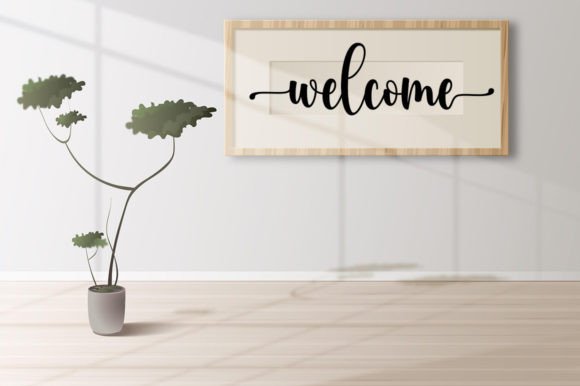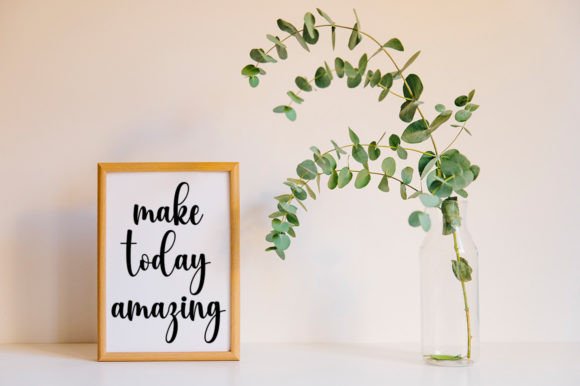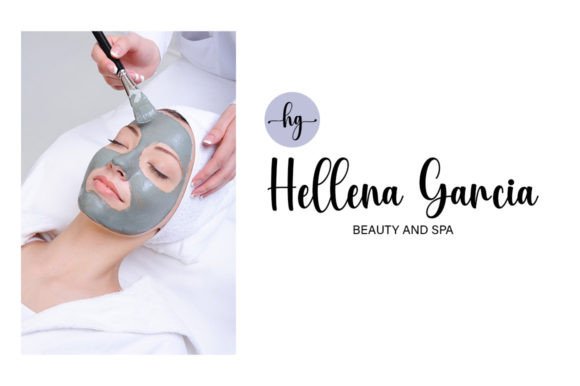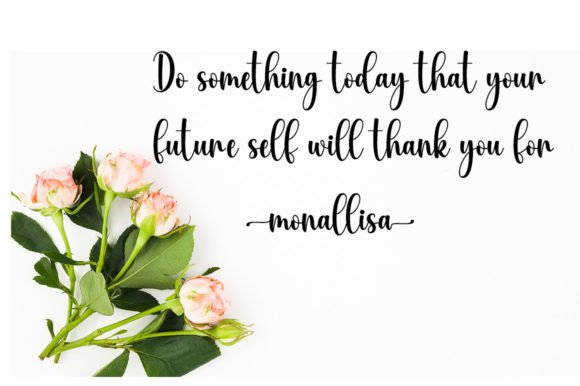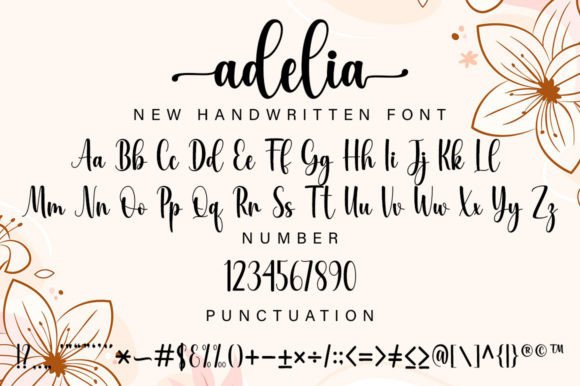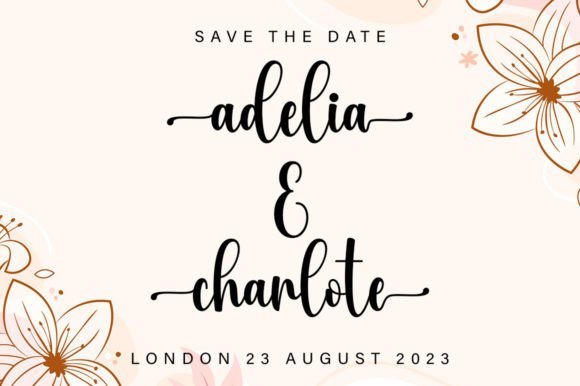
The Adelia Font: Elevate Your Designs with Elegance and Style
Have you ever been in the middle of a design project, and suddenly, you’re stuck on finding the perfect font? I recall a particularly stressful experience while working on a wedding invitation design. My client wanted something elegant, yet personal, and I was determined to deliver. That’s when I stumbled upon the Adelia Font, a stylish and incredibly elegant handwritten font that instantly elevated my design game.
A Personal Review: What I Love and What to Watch Out For
The Good: Why Adelia Font Stands Out ✨
- ✅ Elegant and stylish: Adelia Font is perfect for designs that require a touch of sophistication and elegance.
- ✅ PUA encoded: This feature allows easy access to all glyphs and alternates, making it incredibly versatile.
- ✅ Perfect for various designs: From wedding invitations and thank you cards to quotes, greeting cards, logos, and business cards, Adelia Font is incredibly versatile.
The Not-So-Perfect: A Few Quirks to Consider 🤔
- ⚠️ Learning curve: If you’re new to using OpenType features or glyphs, it might take some time to get familiar with Adelia Font’s capabilities.
- ⚠️ Overuse: As with any elegant font, there’s a risk of overusing it. Make sure to balance it with other design elements to avoid a cluttered look.
The Story Behind Adelia Font: A Designer’s Inspiration
Adelia Font was crafted with the vision of providing designers with a versatile, elegant, and highly legible handwritten font. Inspired by classic calligraphy and modern handwriting techniques, Adelia Font aims to bring a personal touch to any design project. Whether it’s a wedding invitation or a business logo, Adelia Font was designed to impress.
Q: Is Adelia Font suitable for body text?
A: While Adelia Font is incredibly elegant, it’s best suited for headings and short paragraphs due to its decorative nature. For longer body text, a more straightforward font might be more readable.
Q: Does Adelia Font include a variety of alternates?
A: Absolutely! Adelia Font comes with a range of alternates and glyphs, thanks to its PUA encoding. This allows for extensive customization of your text.
Q: Is Adelia Font easy to read?
A: Despite its elegant and decorative style, Adelia Font maintains a high level of legibility, making it suitable for a variety of design applications.